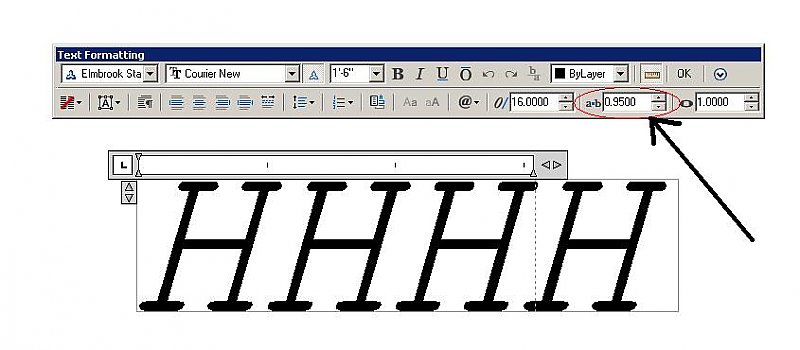
crispotts Posted June 24, 2010 Hi to one and all, As a new member I would appreciate some advice, despite being an AutoCAD user for the last 25 years( I started on version R10) I have learnt my way around by trial and error so need some help on this topic. I tend to draw in model space at 1unit to 1mm and then produce various different scaled layouts in paper space. Anything from 1:2500 to 1:50 and varying paper sizes A1 down to A4. On the smaller sizes of print papers I tend to lose clarity on text so how does one keep the text as clear as it appears in model space. SIMPLE >>>becomes>>> SAMPLE but more blurred For the title block I type in paper space so no problems here. Thanks in anticipation, I am sure it is a simple solution that I once knew but have since forgotten in my old age. Crispotts Quote
Skybeorn Posted June 24, 2010 What type of Font are you Using? Have you tried adjusting the character spacing? Is the text on a layer that is plotting a lineweight? Quote
crispotts Posted June 24, 2010 Author Posted June 24, 2010 Hi Skybeorn, Because of this problem I have had to change the fonts to simplex as anything else is impossibly blurred. I will have a look a layers and character spacing and get back to you. Thanks Crispotts Quote
crispotts Posted June 24, 2010 Author Posted June 24, 2010 Hi Skybeorn, Yes you were obviously on the right track, as the lineweight was set to 0.8mm. Reverting to 0.00mm makes a whole lot of difference although for A4 prints one still seems to need to use a 'simplex' type font as 'arial' still is a bit blurred at this size. Where can I check character spacing? Crispotts. Quote
Skybeorn Posted June 24, 2010 Crispotts, Check the ScreenShot. I guess the correct term is "tracking". Let me know if that helps *_* Quote